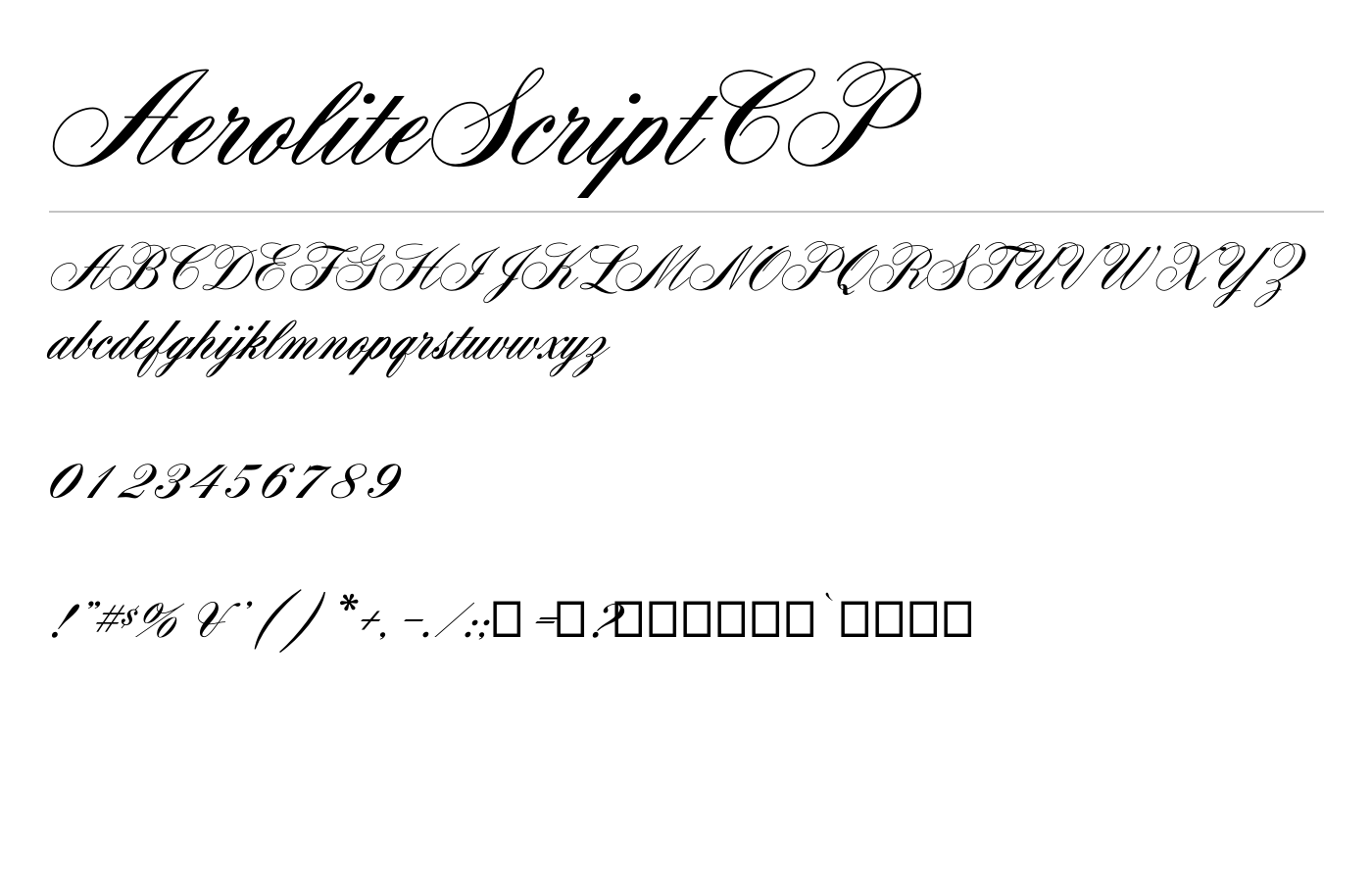
AeroliteScriptCP is a graceful, elegant script font featuring thin, flowing strokes and high contrast that give it a refined and classic feel. Its delicate swashes and smooth curves make it perfect for luxury branding, wedding invitations, or sophisticated editorial designs where a touch of timeless beauty is needed. With its stylish letterforms and clear readability, it works best in headlines and decorative texts that require an elegant and poised appearance.
AeroliteScriptCP Font
About AeroliteScriptCP Font